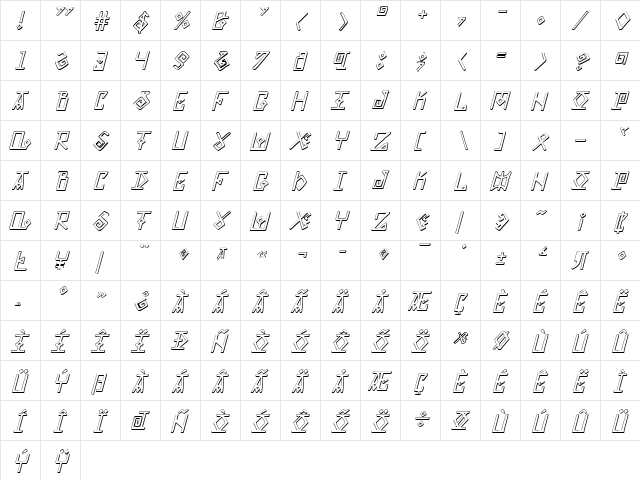
Elder Magic Shadow Italic Italic
Design Context for Elder Magic Shadow Italic Typeface
Elder Magic Shadow Italic brings ornamental detail and strong personality to headlines and identities, where visual impact matters more than quiet functionality. The dynamic lean of this cut emphasises speed and emphasis in any layout.
Font Pairing: Pair with a clean neutral sans-serif for body copy to let Elder Magic Shadow Italic's character lead without overwhelming the composition.
Pro Tip: Treat Elder Magic Shadow Italic as the centrepiece of your typographic hierarchy. One strong heading set in a decorative face can carry an entire layout.